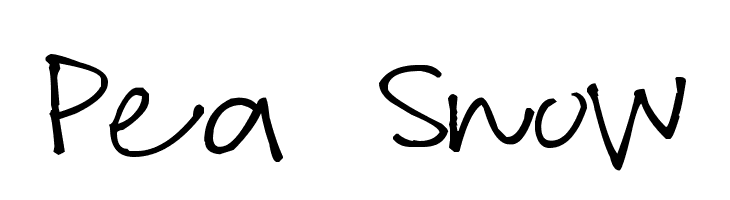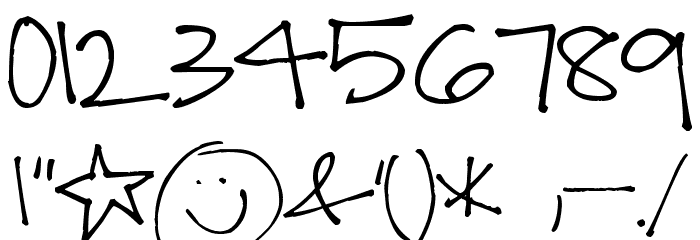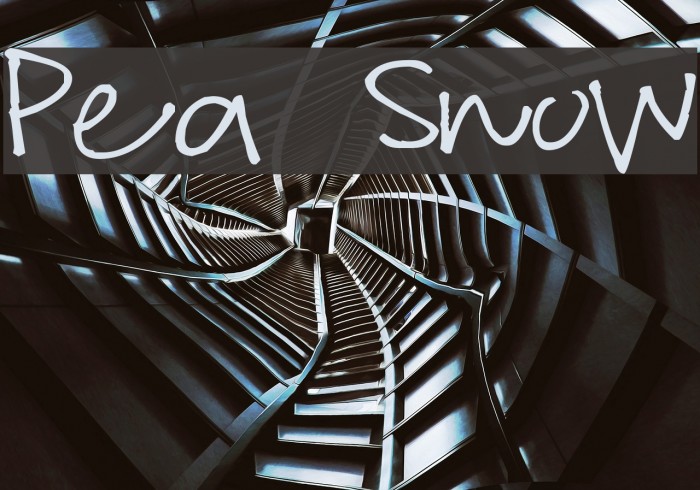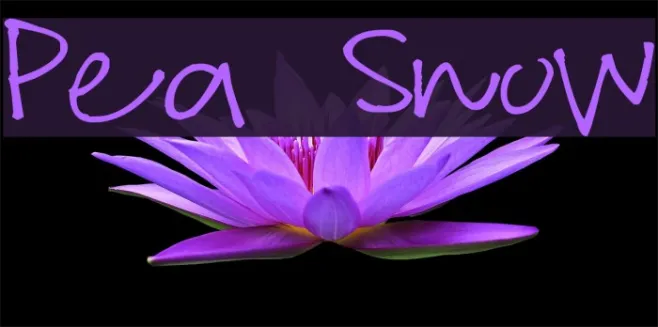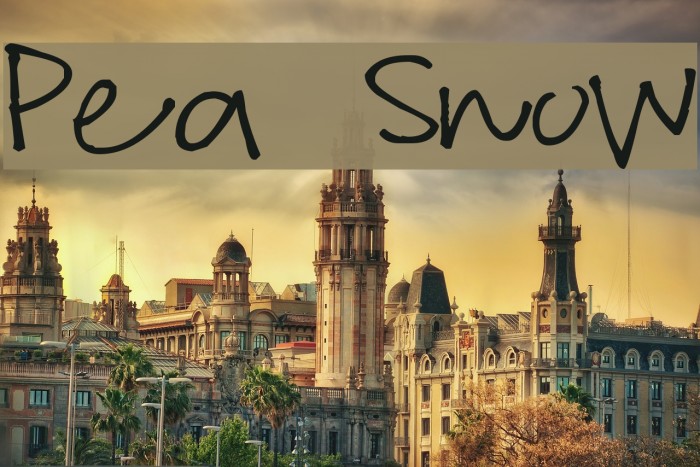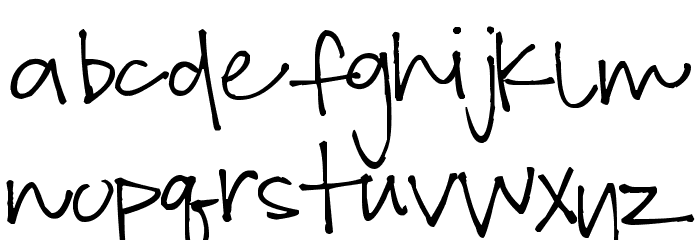
Pea Snow Font
This playful and informal handwritten font exudes a casual and friendly vibe, reminiscent of a personal note or a quick sketch. The letters are slightly irregular, adding a touch of whimsy and authenticity. The strokes are uneven, with a natural flow that mimics real handwriting. This font includes both uppercase and lowercase letters, numerals, and a variety of special characters, making it versatile for different uses. The overall appearance is approachable and lively, perfect for projects that require a personal touch.
A playful, informal handwritten font with a casual and friendly vibe.
• Proposed Projects: Ideal for greeting cards, personal notes, informal invitations, children's books, and playful branding.
• Overall Style: Casual, Playful
• Use Case: Headlines, Informal text, Personal notes